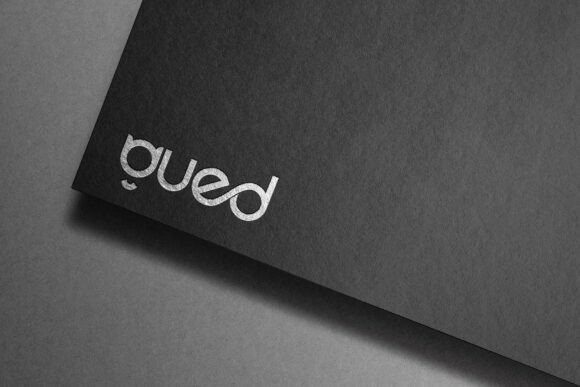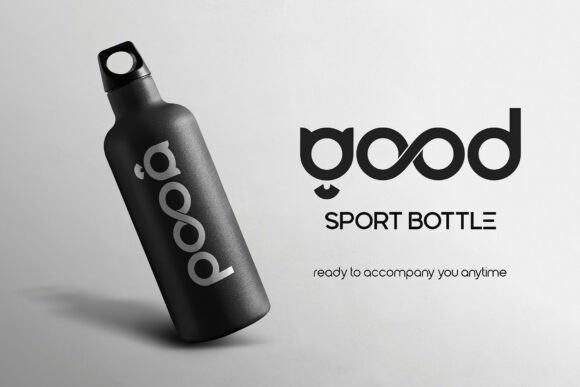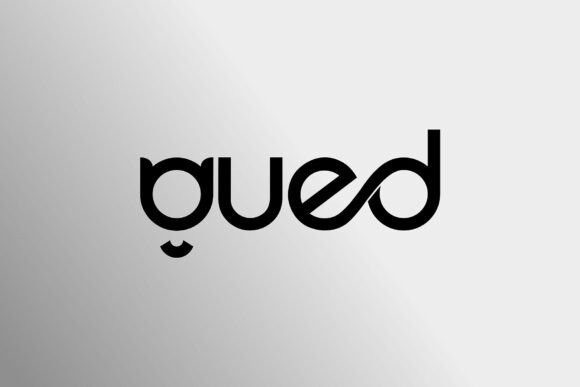
Gued Font introduces a contemporary minimalistic logo font, masterfully designed to deliver an impression of precision, clarity, and eternal elegance.With its artfully calculated geometry and fluid curves, it exhibits an ideal blend of simplicity and personality.
Each letter conveys a calculated rhythm, exuding a sense of professionalism, forward-thinking, and unmatched style—making Gued a highly sought-after option for creative professionals, branding experts, and cutting-edge companies. The rounded edges and flawless connectivity convey movement and assurance, while its minimalistic form guarantees sleekness and readability.
The Gued font remains harmonious and perfectly proportioned whether used in uppercase or lowercase, lending your creations an air of sophistication and refinement. The inspiration behind Gued lies in contemporary architecture, advanced technology, and exclusive identity design. Versatile across various industries, it adapts beautifully to different contexts— whether for a tech start-up logo, an understated fashion label, or a stylish digital screen. It carries a futuristic yet familiar vibe that makes it suitable for architectural firms, design agencies, clothing brands, or modern product packaging.
Optimized for print and digital use, it works exceptionally well in large titles and minute details, presenting a stylish, clean font easily aligned with any brand tone. The font is also PUA-encoded, ensuring effortless access to all glyphs, swashes, and alternate characters to help you customize your creations with ease.